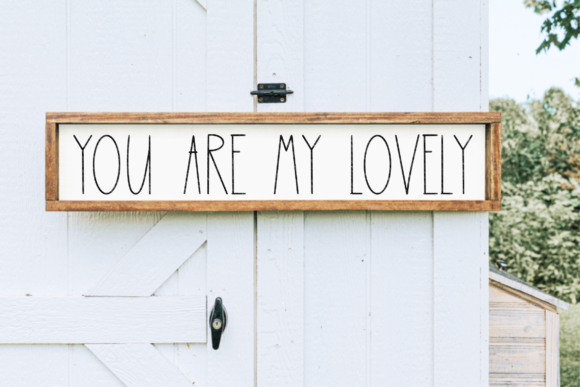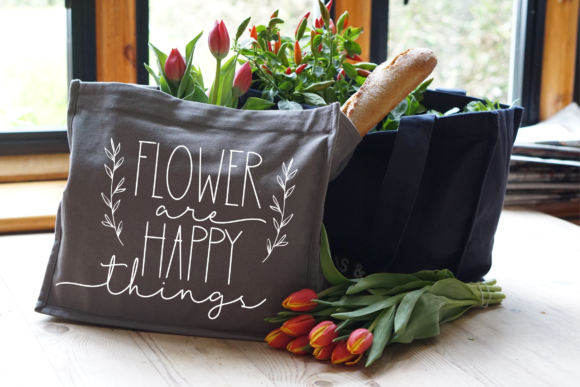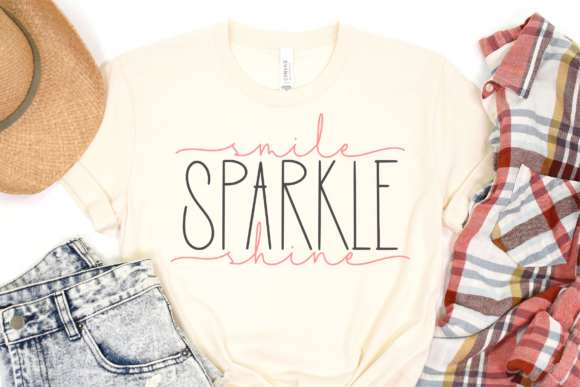
Introduction to Farmhouse Greatness Font
Farmhouse Greatness consists of two fonts designed to complement each other perfectly.
Together or apart, these fonts are ideal for adding a chic and cheery touch to your crafts This font is PUA encoded which means you can access all glyphs and swashes with ease.
Farmhouse Greatness Font offers exceptional quality and versatility, making it a valuable addition to your design toolkit. Whether you’re creating for personal projects or commercial use, Farmhouse Greatness Font delivers professional results.